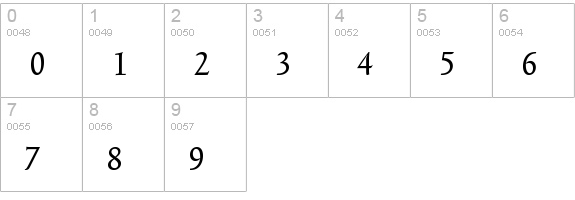
TriniteNo3-RomanCondTab is a captivating and elegant font that effortlessly combines modern design with a touch of sophistication. This font exudes a sense of timeless beauty, making it perfect for a wide range of projects. Its sleek and slender letterforms create an air of refinement and grace, while its condensed style adds a touch of uniqueness. Whether you are designing a logo, creating a stunning invitation, or crafting a professional-looking website, TriniteNo3-RomanCondTab is the perfect choice to make a lasting impression. Its clean lines and precise curves ensure legibility, while its stylish and contemporary aesthetic adds a touch of modernity to any design. But what sets TriniteNo3-RomanCondTab apart from other fonts is its availability as a free download. Yes, you read that right - this exquisite font is freely available to download at FontsMarket.com. This means that you can enhance your creative projects without having to worry about breaking the bank. With TriniteNo3-RomanCondTab, you can elevate your designs to new heights and captivate your audience with its timeless beauty. So why wait? Head over to FontsMarket.com today and unleash the full potential of this incredible font.